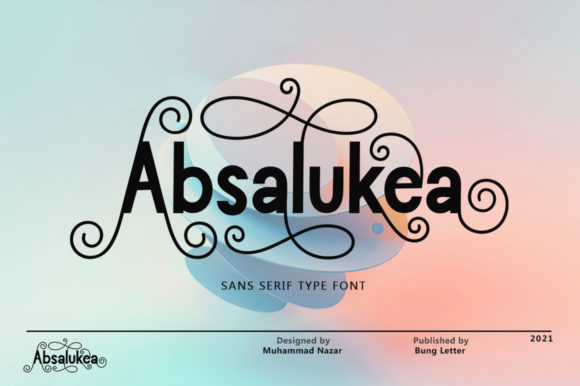
The Designer’s Delight: Absalukea Font
I still remember the frustration of working on a project, pouring my heart and soul into every detail, only to be held back by one thing: the font. My client wanted something elegant, unique, and eye-catching, but I just couldn’t seem to find the right fit. That was until I stumbled upon Absalukea, an elegant and uniquely lettered sans serif font that has since become a staple in my design toolkit.
A Personal Review: The Good and the Great
So, what makes Absalukea so special? Here are a few things I love about this font:
- ✨ Elegant and Unique Design: Absalukea boasts a sleek, modern sans serif design that’s perfect for projects that require a touch of sophistication.
- ✅ PUA Encoded for Easy Access: Being PUA encoded means that you can access all glyphs and swashes with ease, giving you the flexibility to experiment with different styles.
- ✅ OpenType Features: Absalukea supports OpenType features, allowing you to take advantage of stylistic alternates, glyphs, and more.
The Not-So-Perfect: A Few Quirks
While Absalukea is an excellent font, it’s not without its limitations. Here are a few things to keep in mind:
- 🤔 Limited Use in Body Text: Due to its elegant and unique design, Absalukea may not be the best choice for body text. It’s better suited for headings, titles, and short paragraphs.
- ⚠️ Some Swashes May Not Display Correctly: Depending on the platform or software you’re using, some swashes may not display correctly. Make sure to test the font before finalizing your design.
The Story Behind Absalukea: Designer Inspiration
Absalukea was designed with the goal of creating a unique and elegant sans serif font that would cater to the needs of designers and crafters. The designer drew inspiration from classic typography and modern design trends to create a font that’s both sophisticated and versatile.
| Is Absalukea suitable for body text? | While Absalukea is an excellent font, it’s better suited for headings, titles, and short paragraphs. For body text, consider using a font with better readability. |